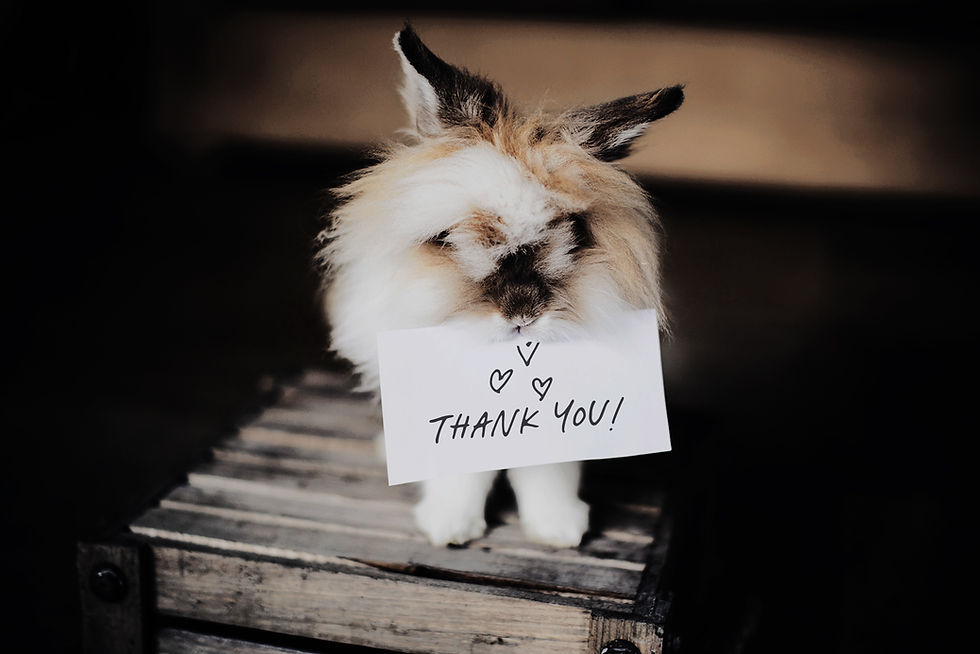
Moon and Stars is a handwritten script font and illustrations collection, perfect to create cute handmade designs, such as logos, packaging, prints and postcards, patterns, and social media posts.
Moon and Stars includes:
A handwritten script font with tons of ligatures for a smoother text.
A dingbat font with 52 handmade line drawings, including food, fruits, vintage objects and plants, with a bonus blackout version. The individual illustrations are also included in AI and transparent PNG files, and were drawn using references from Unsplash and my own photos.
A set of over 160 shapes (that match the illustrations), lines, circles, words and arrows (transparent PNG files).